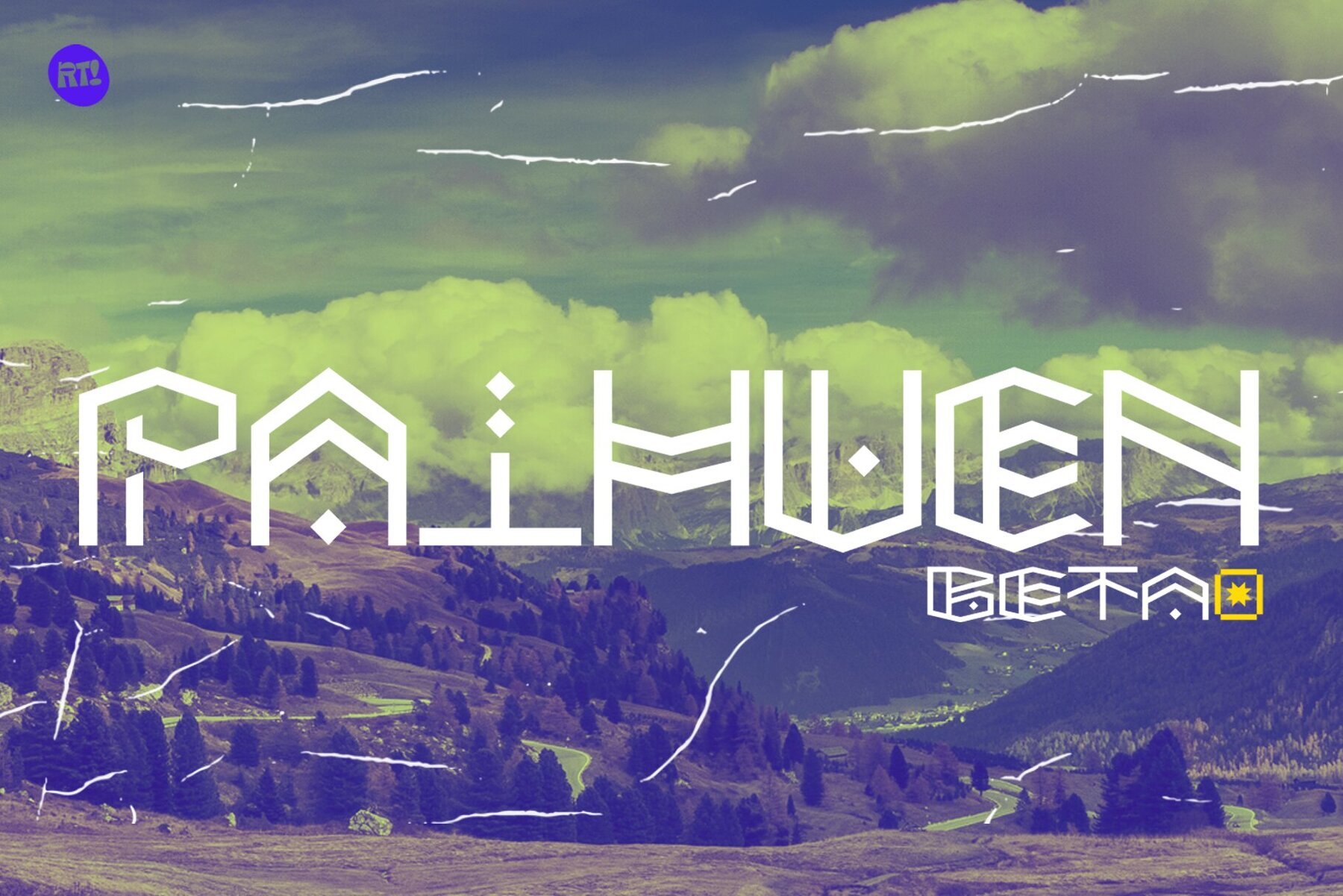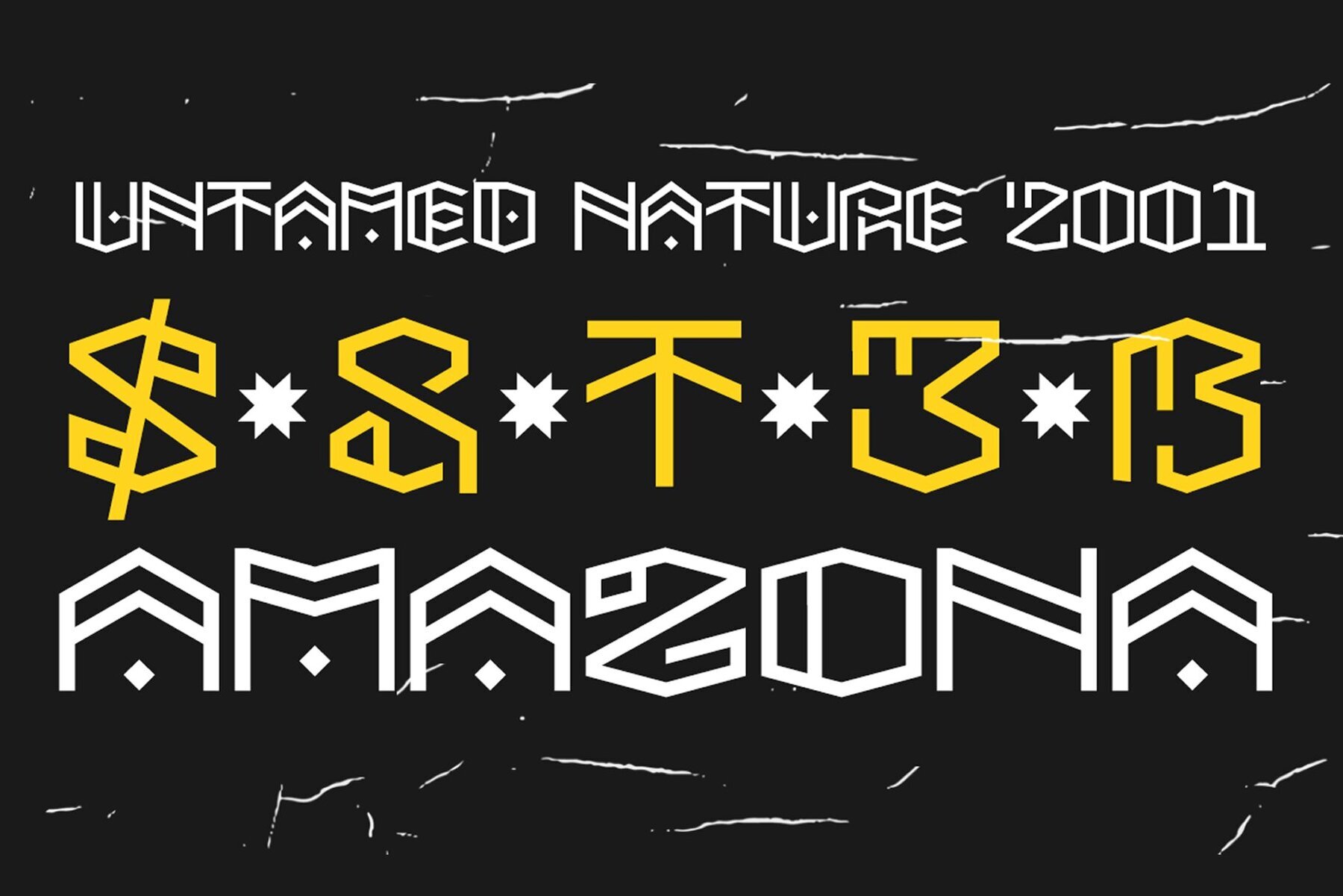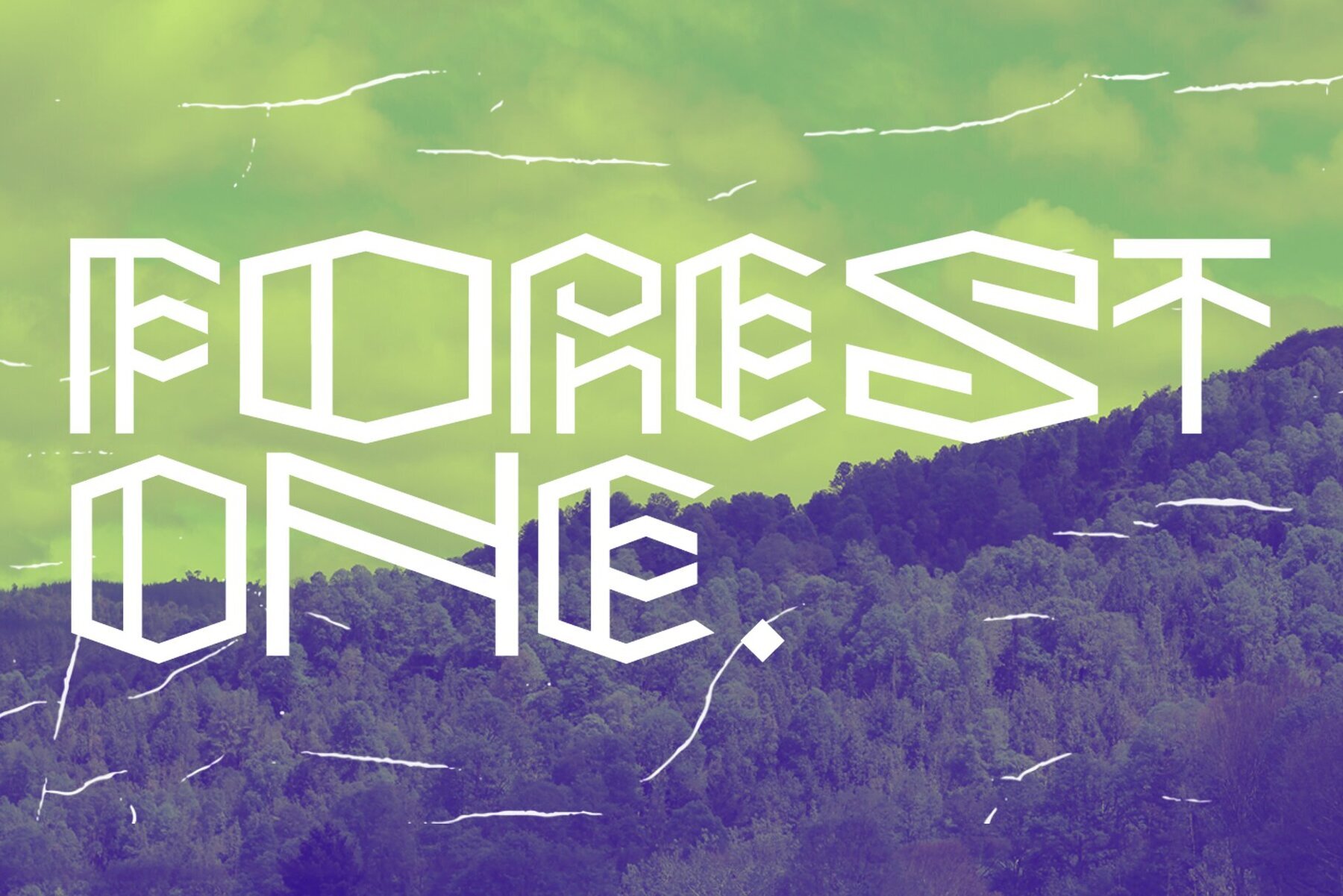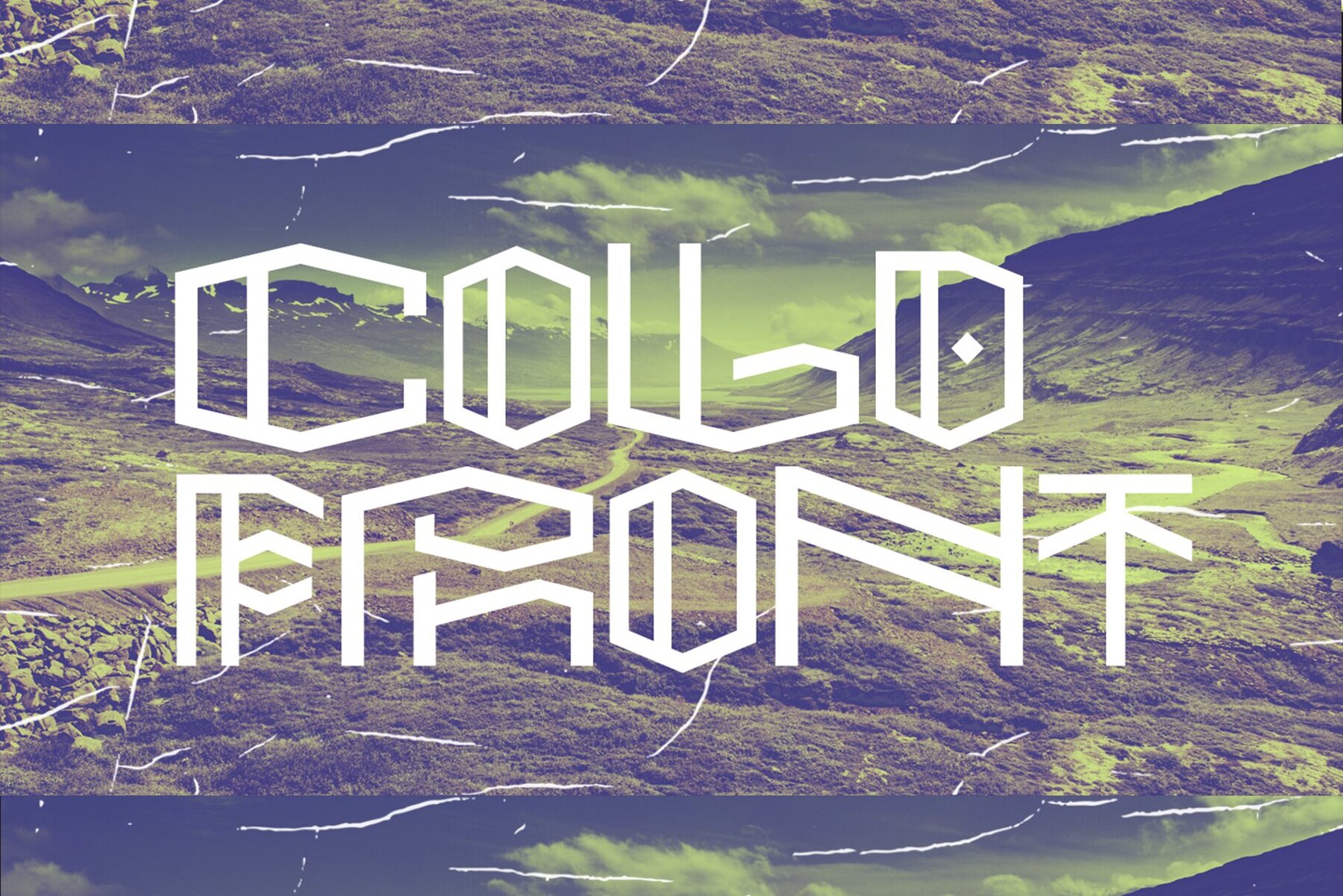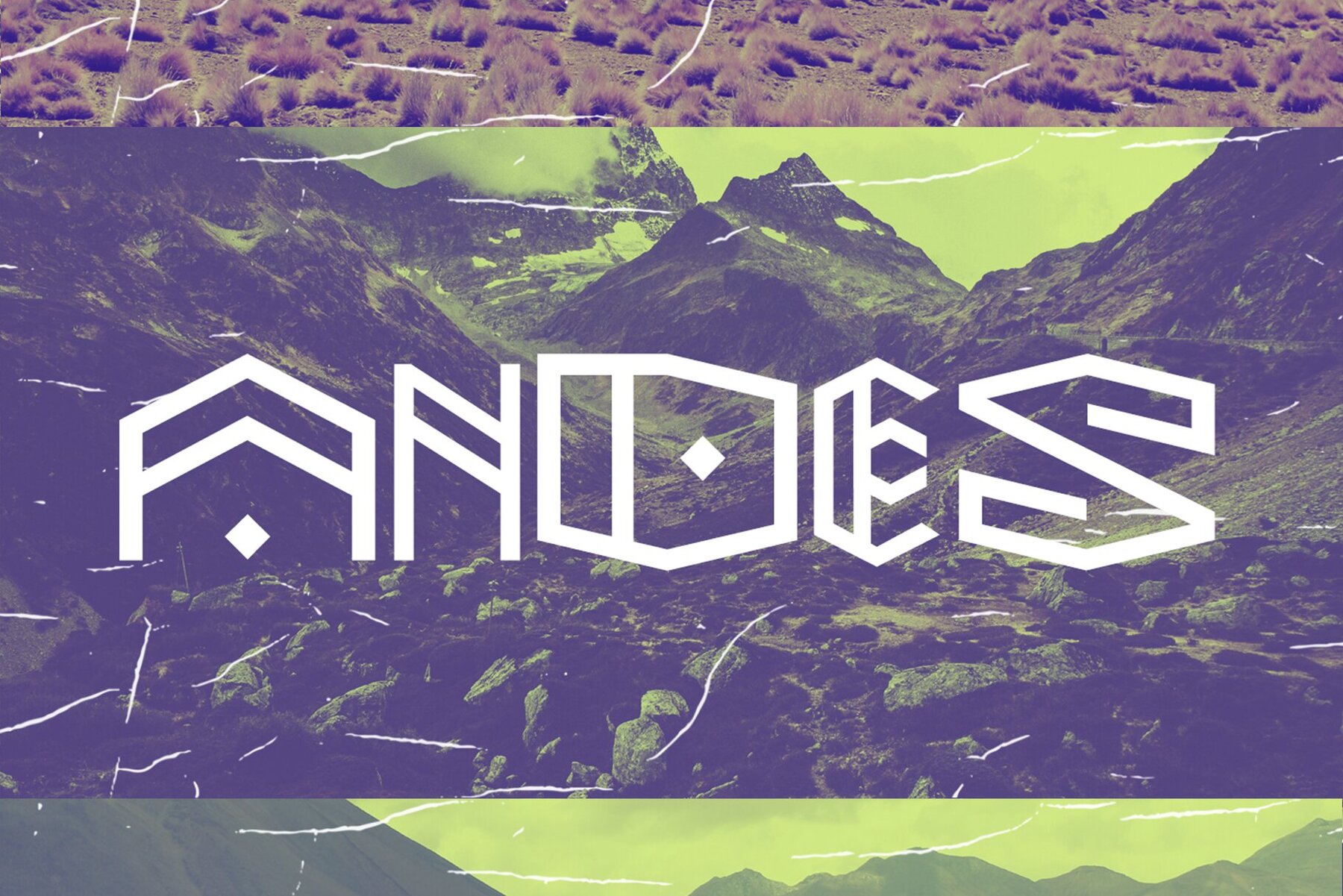
Paihuen Beta Font
Paihuen Beta brings a unique interpretation to your design projects, drawing inspiration from the ancient rupestre art form. This compelling typography, designed by RodrigoTypo, offers six distinct variants that interweave seamlessly to create dynamic and attention-grabbing titles.Paihuen Beta: Playful Typography with Rupestre Inspiration